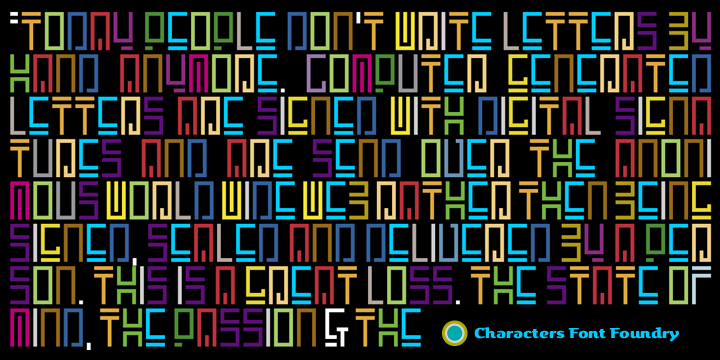
• Encrypted Wallpaper
With Encrypted Wallpaper you can create your own decorative wallpaper that you can still read.
The forms of the font are perfect for creating wallpaper, background patterns and decorative elements. The human eye needs time to decypher the cryptic forms back into a font.
Women can decypher Encrypted Wallpaper much faster than men. So all you guys out there, if you don't want to look like a fool, don't show this to your wife.